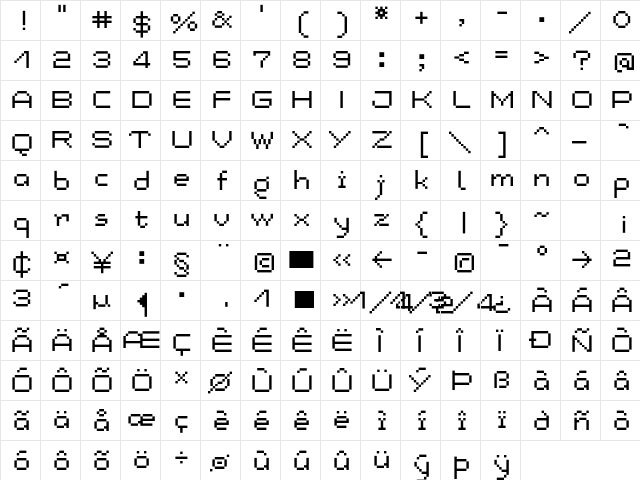
LomoCopy LT Std Regular Regular
| Foundry | Linotype Library GmbH |
| Designer | Fidel Peugeot |
Design Context for LomoCopy LT Std Regular Typeface
LomoCopy LT Std Regular takes a measured approach to typography — its balanced proportions and neutral character make it a reliable workhorse for both digital and print work. Its slender proportions lend an understated elegance to any composition.